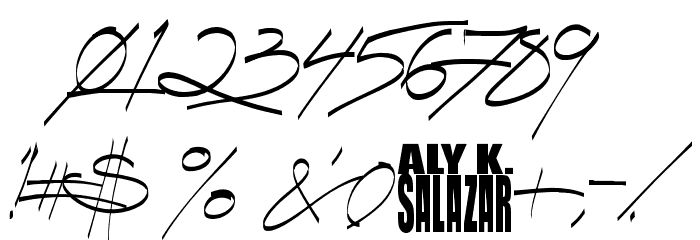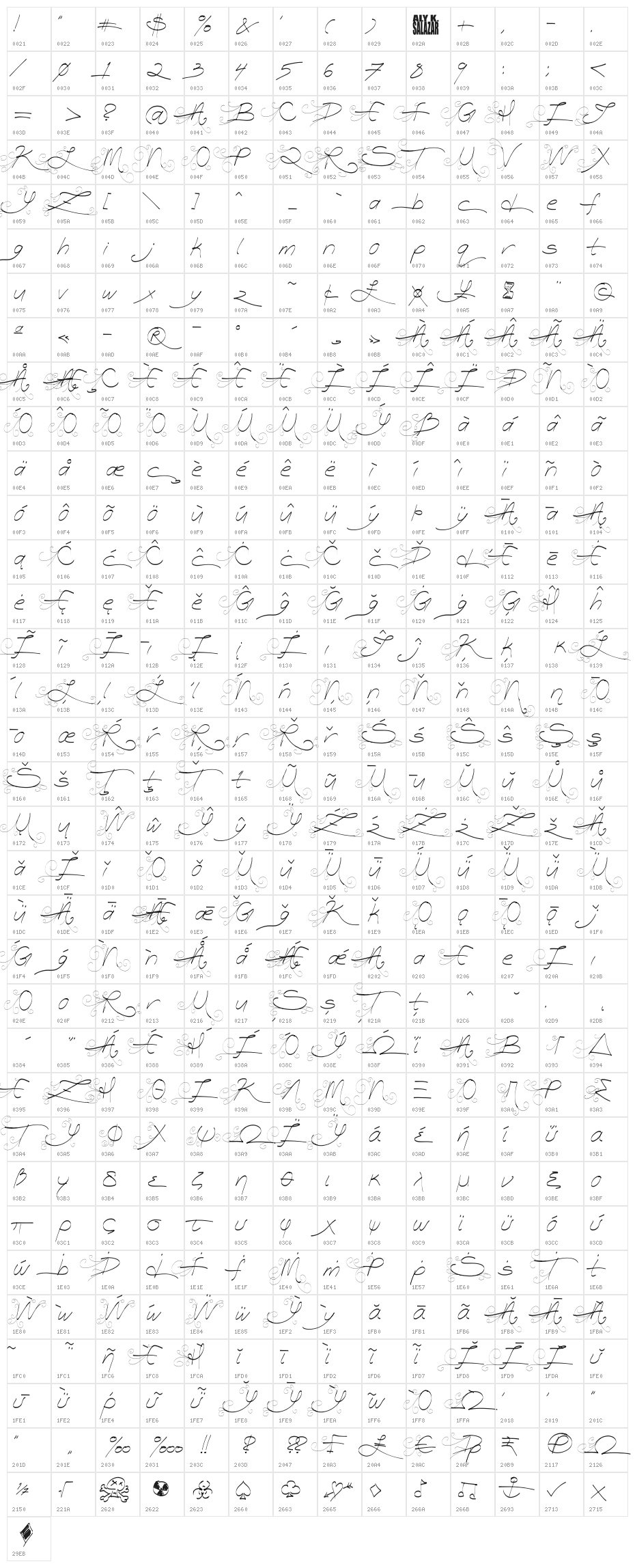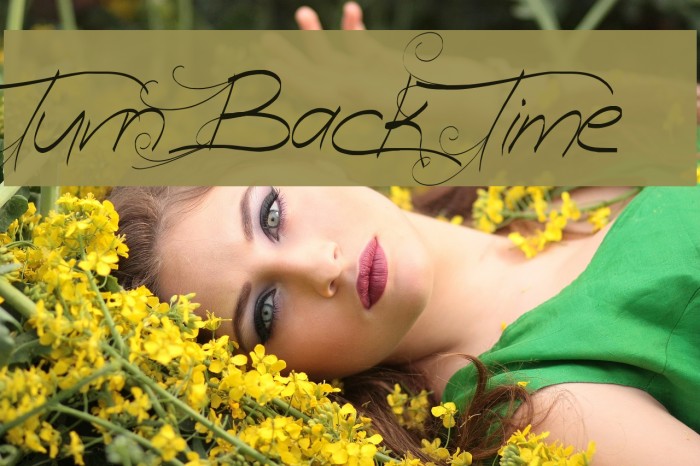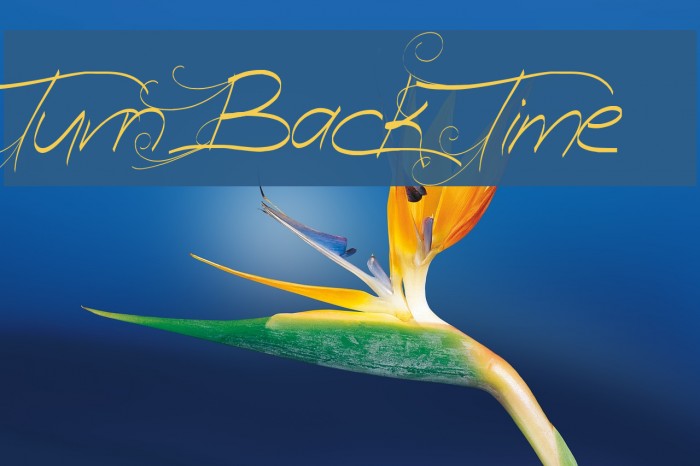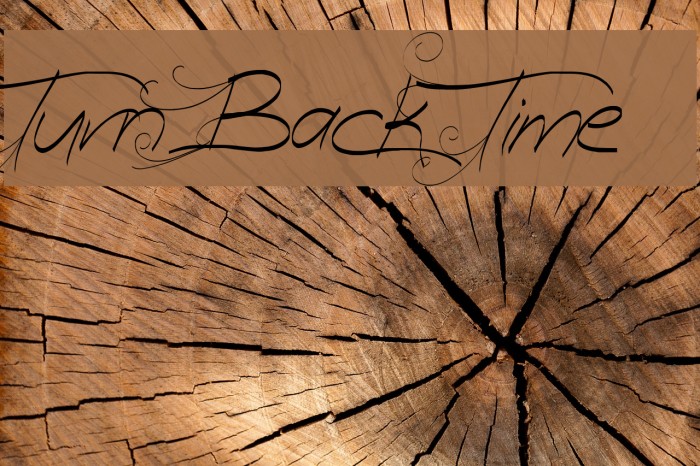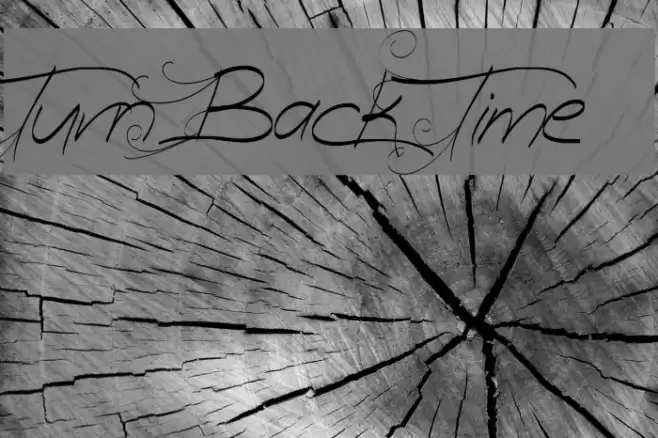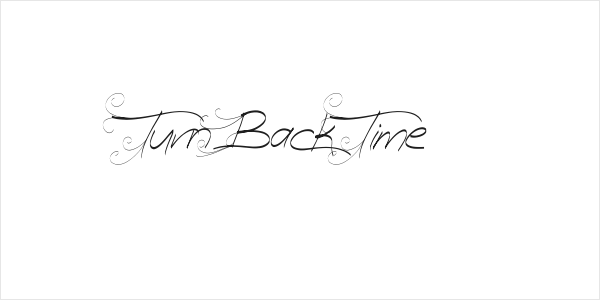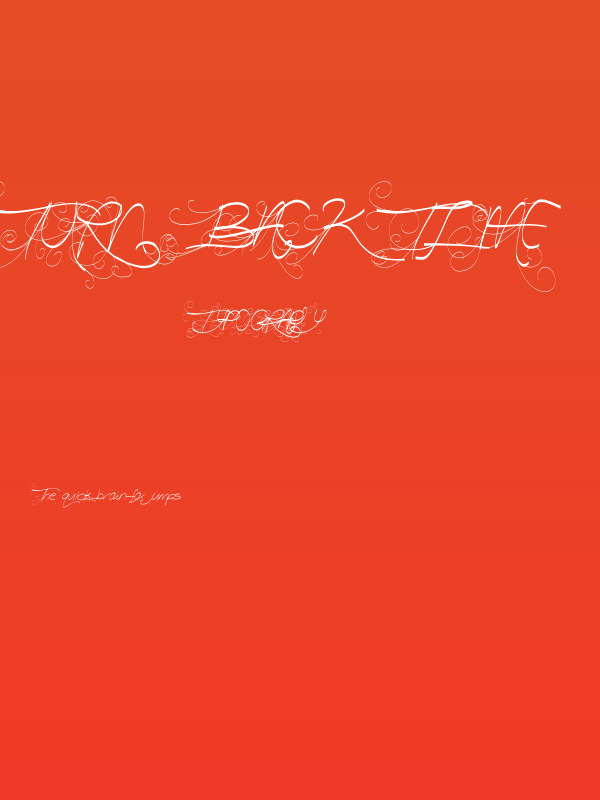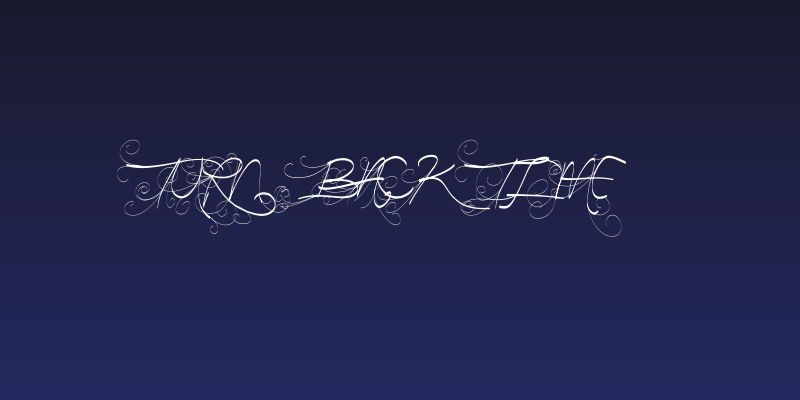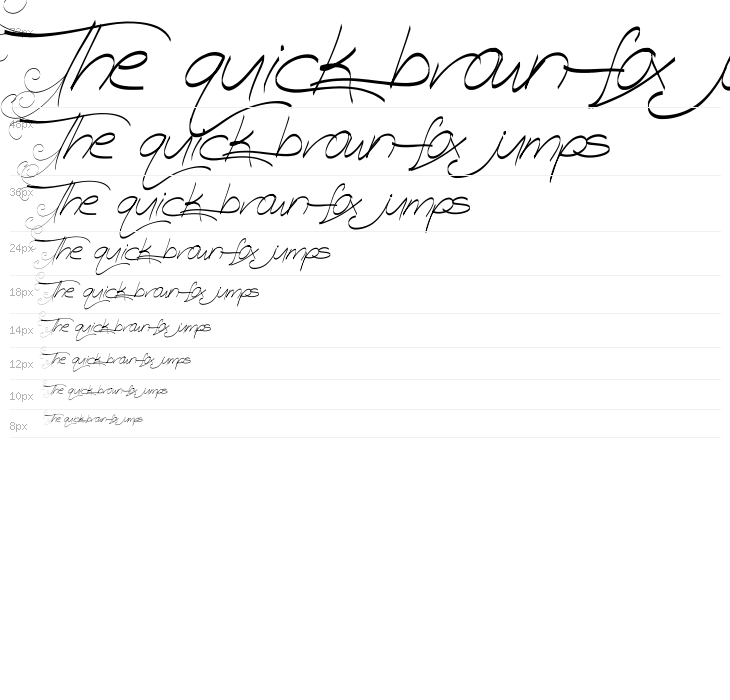
Turn Back Time Font
Turn Back Time Description
This font is a highly decorative script style, characterized by its elegant and intricate swirls and flourishes. The uppercase letters are particularly ornate, with elaborate loops and extensions that give a sense of sophistication and artistry. The lowercase letters maintain a more streamlined appearance, yet still carry a touch of the decorative flair seen in the uppercase. The numerals and special characters are consistent with the overall style, offering a cohesive look. This font is ideal for projects that require a touch of elegance and creativity, such as invitations, branding, or artistic designs.
| Use Case | Logos, Invitations, Artistic Designs |
| Proposed Projects | Ideal for wedding invitations, luxury branding, artistic projects, and decorative signage. |